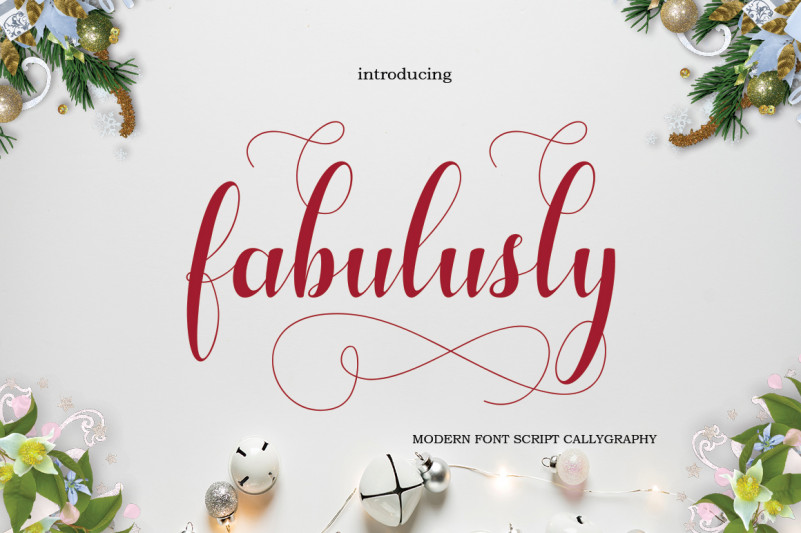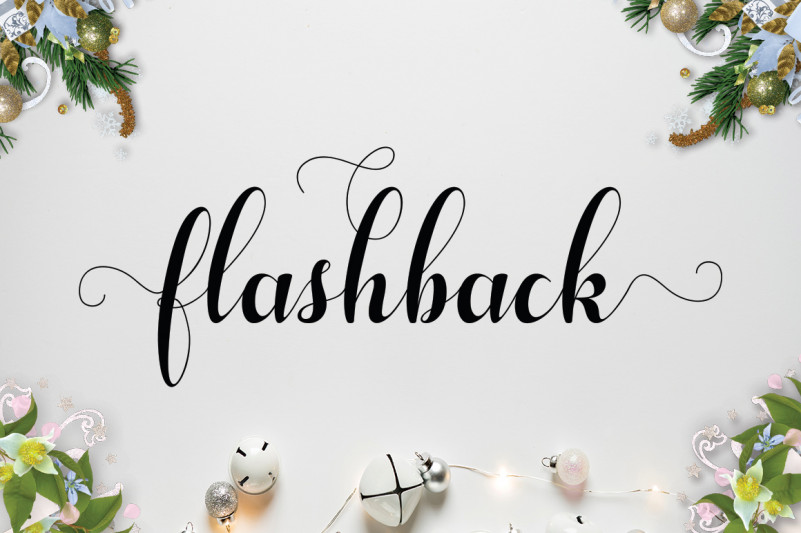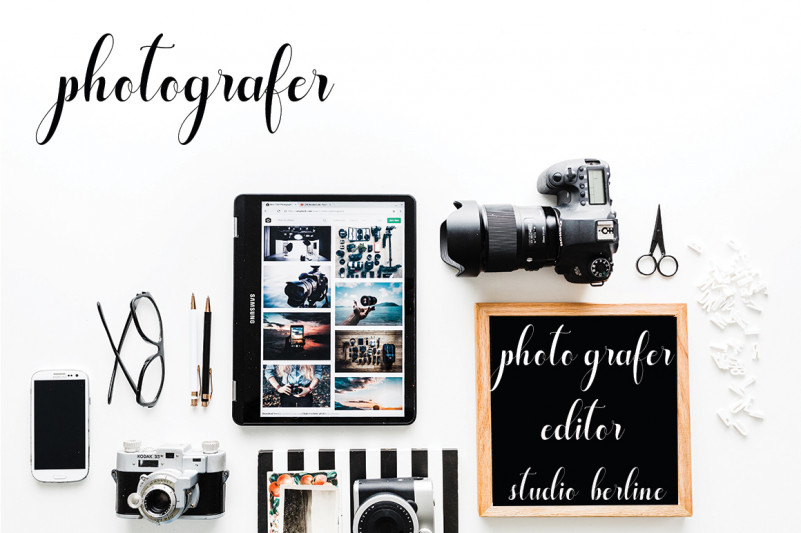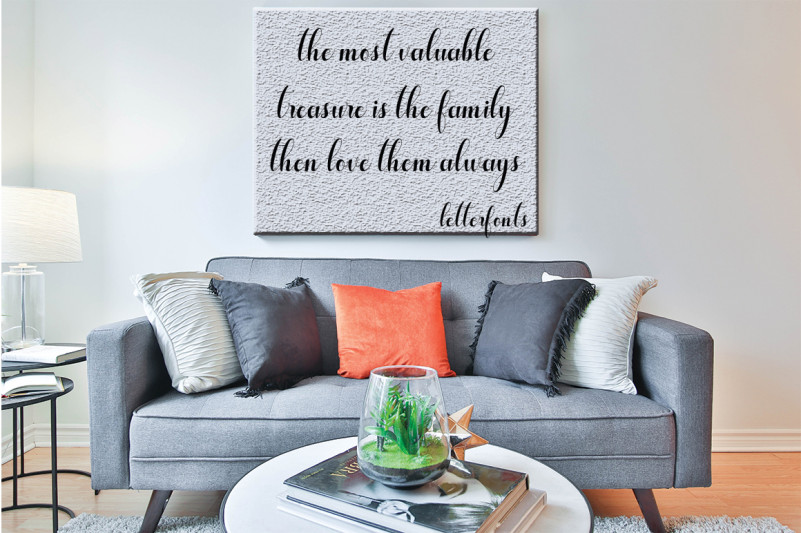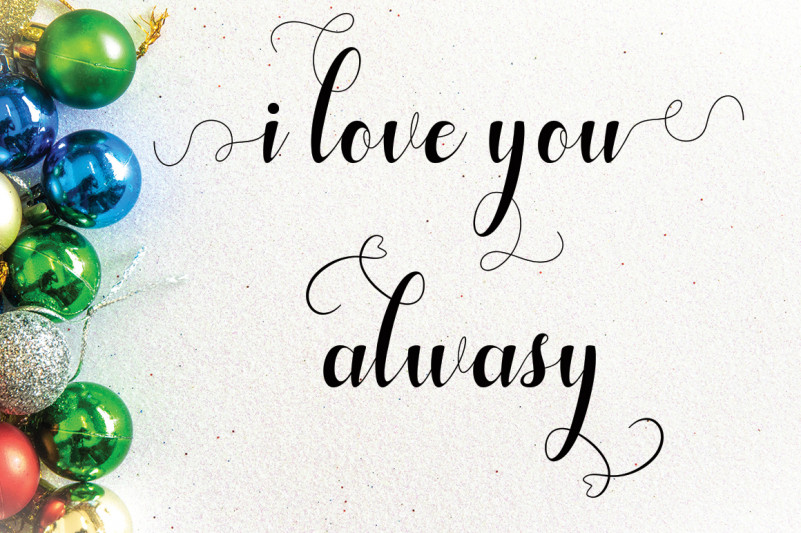
Fabulusly Script Font
Fabulusly Script Font – A new fresh handmade calligraphy font. A new modern calligraphy Typeface Fonts with combines from copperplate to contemporary typeface, classic, beauty and elegant touch. It’s designed and shared by letterfont. It’s a new fresh & modern script with a handmade calligraphy style, decorative characters and a dancing baseline! So beautiful on invitation like greeting cards, branding materials, business cards, quotes, posters, and more!!